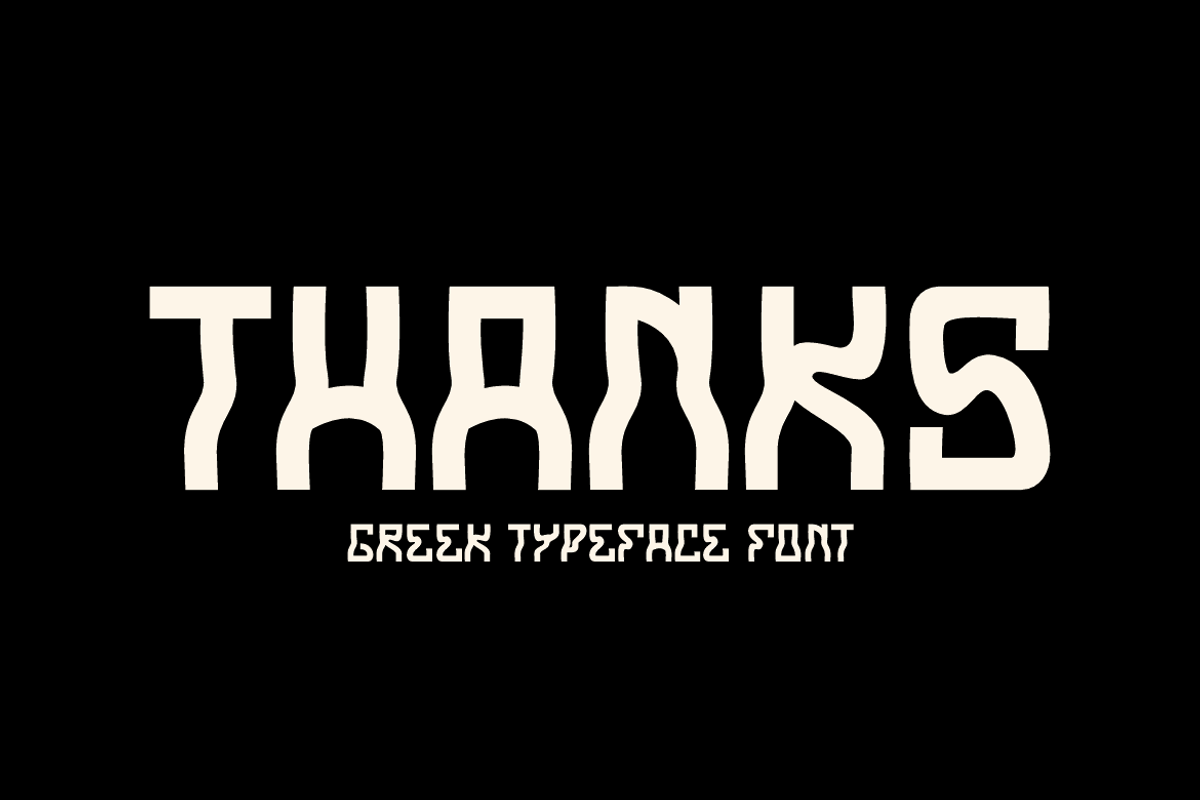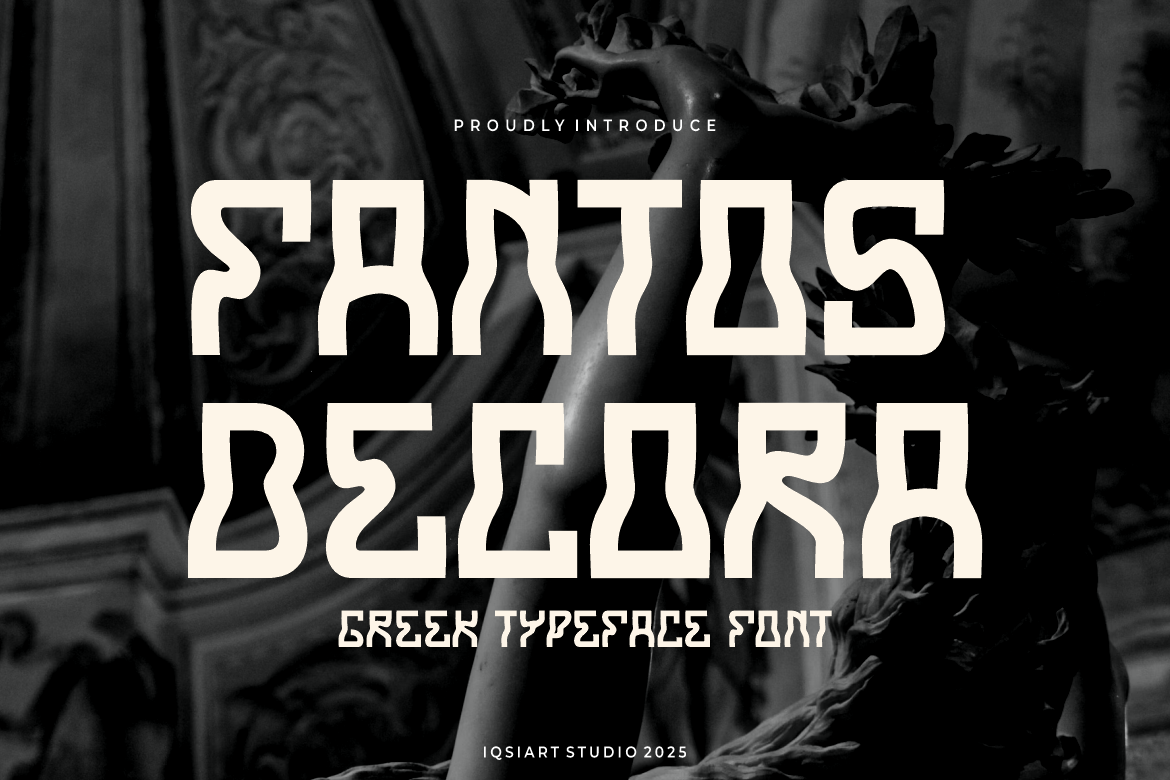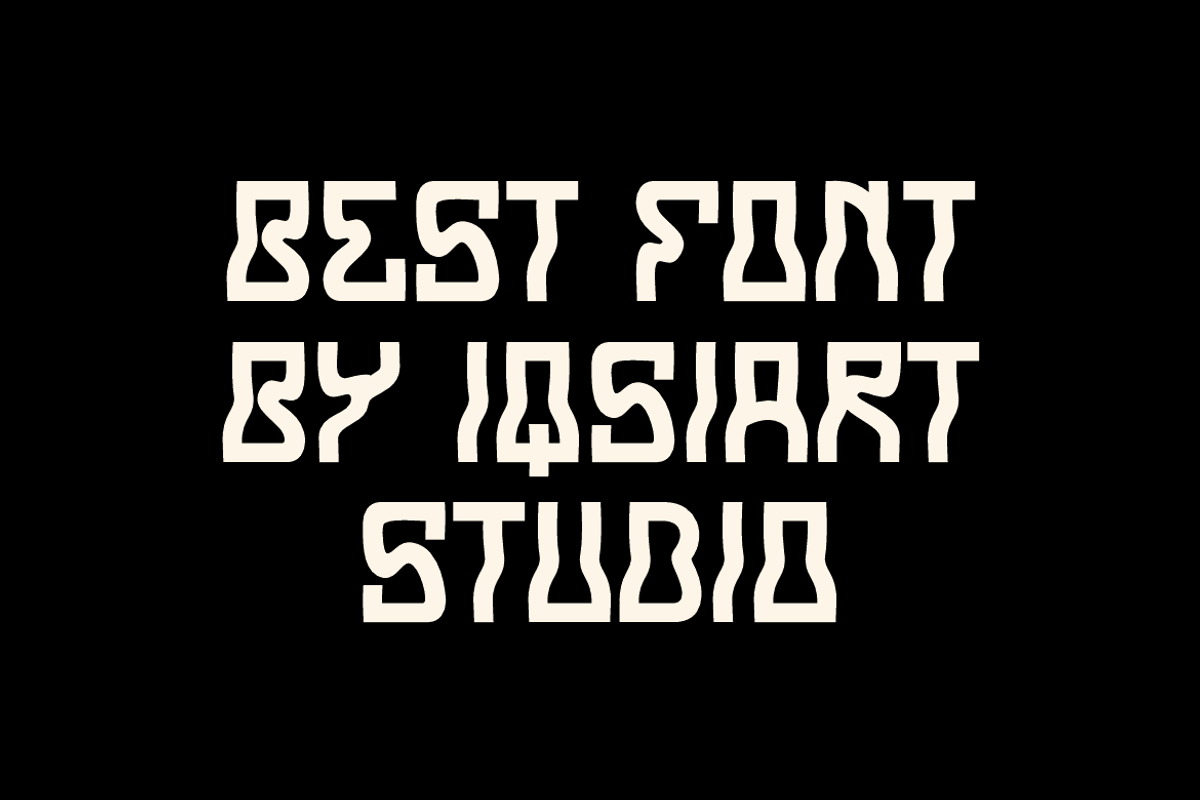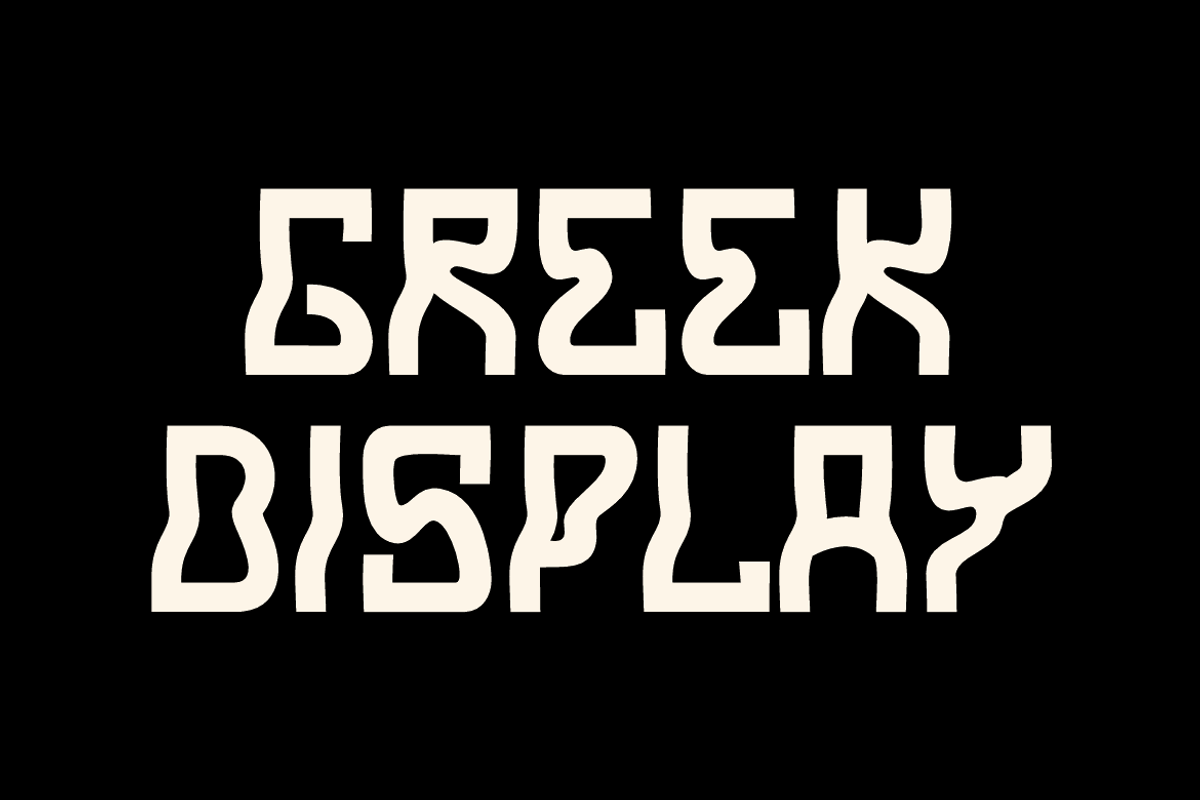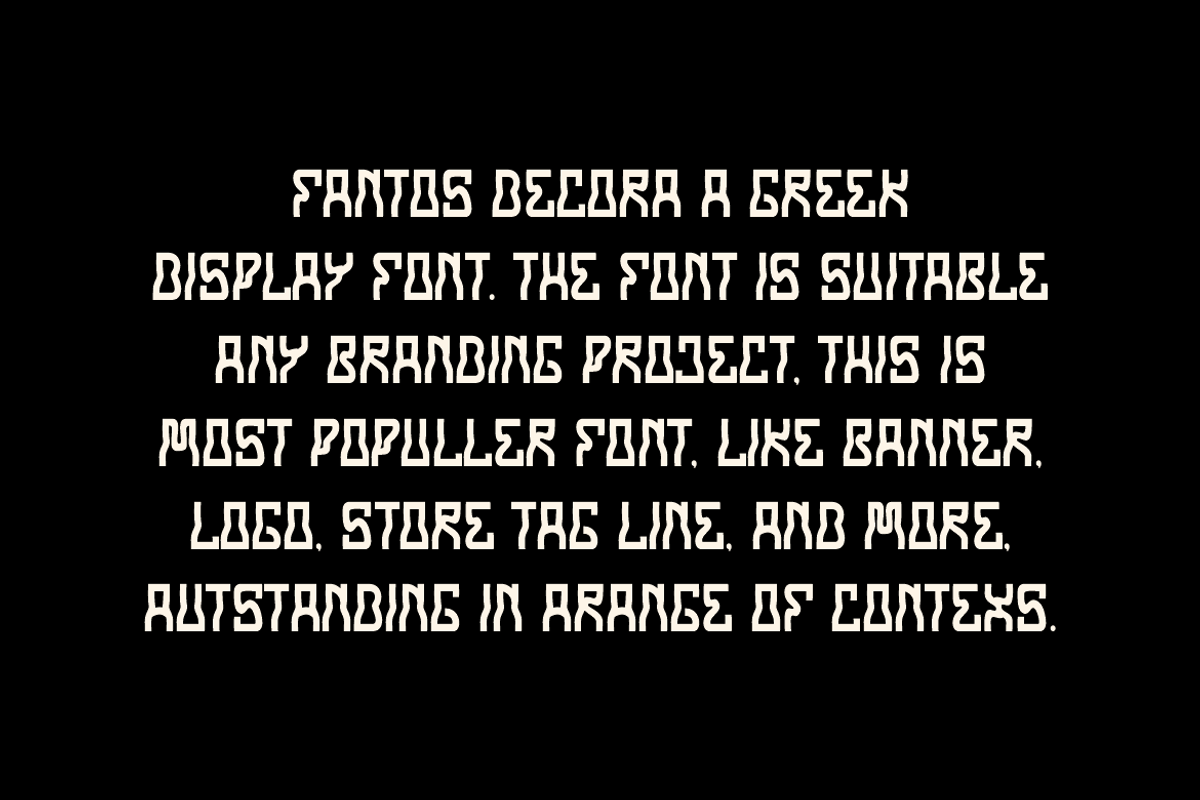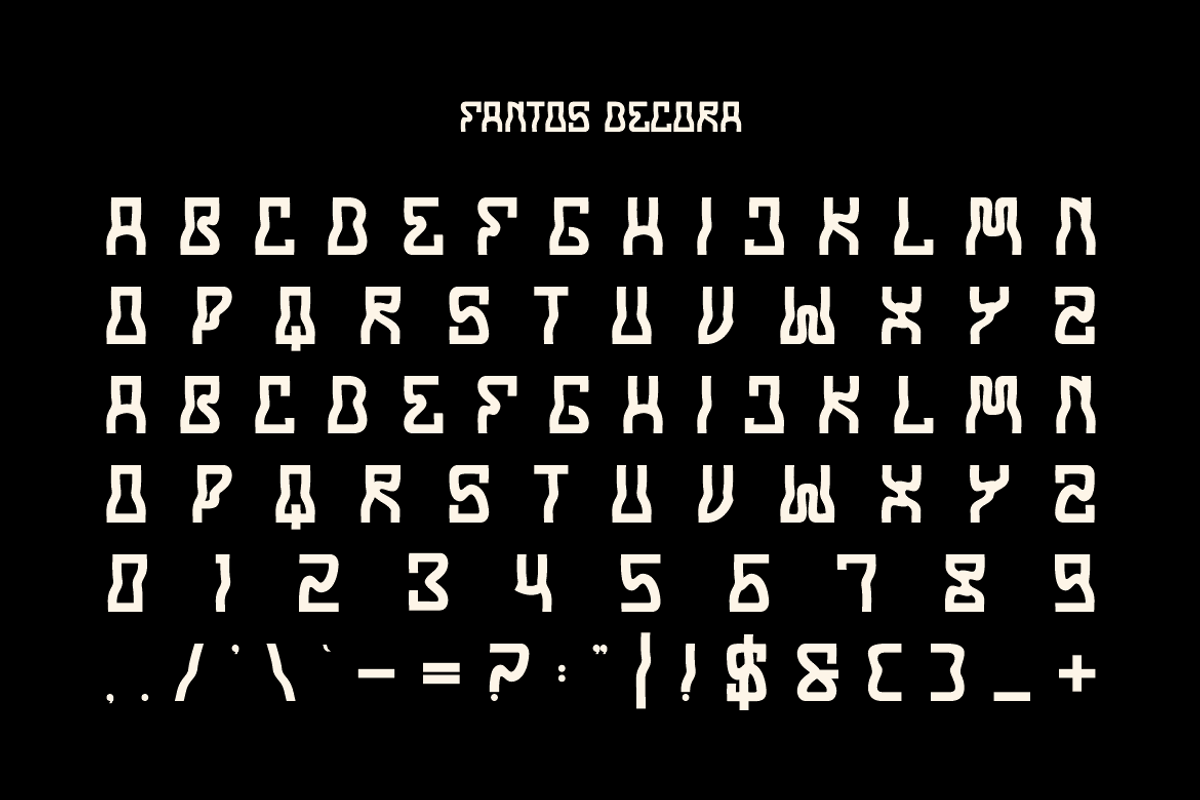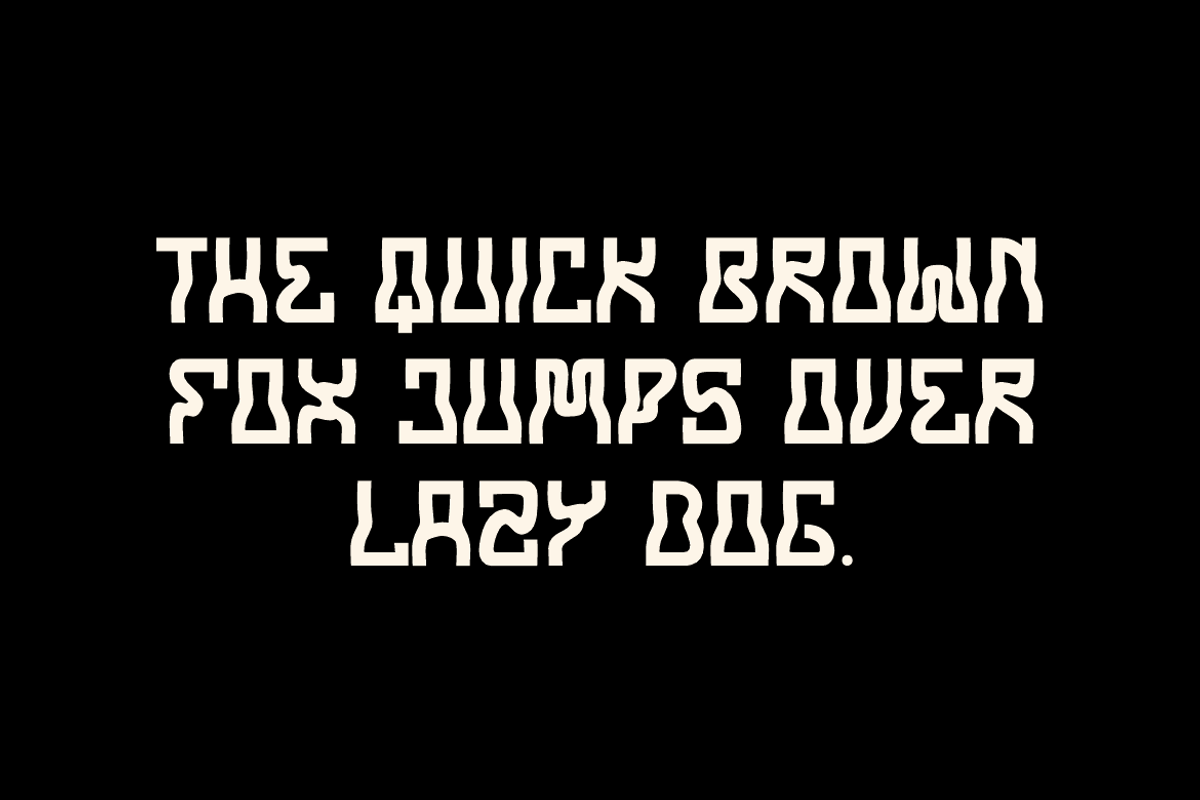
Fantos Decora - Greek Font
Fantos Decora Font is a best and authentic display font. This font can be used for your various needs. We provide various themes and font styles. visit our profile to get a wide variety of themes and different font styles you need.